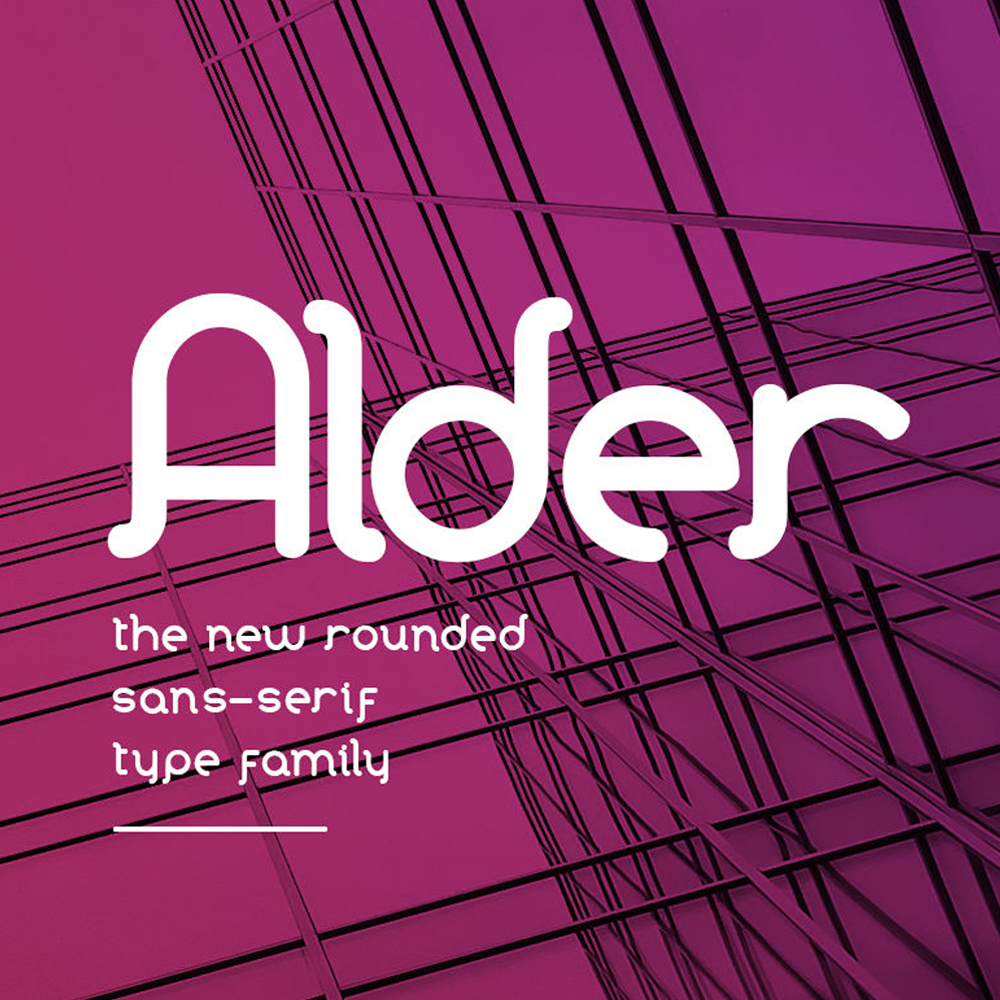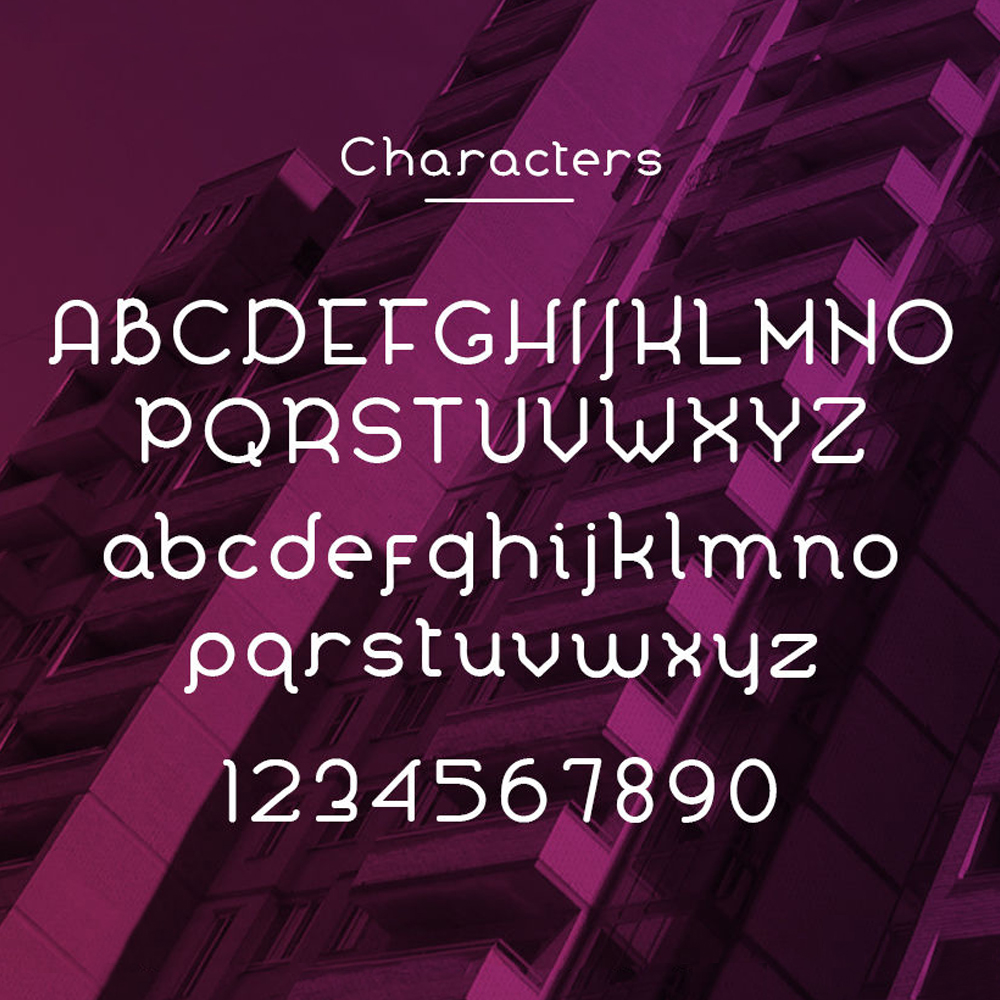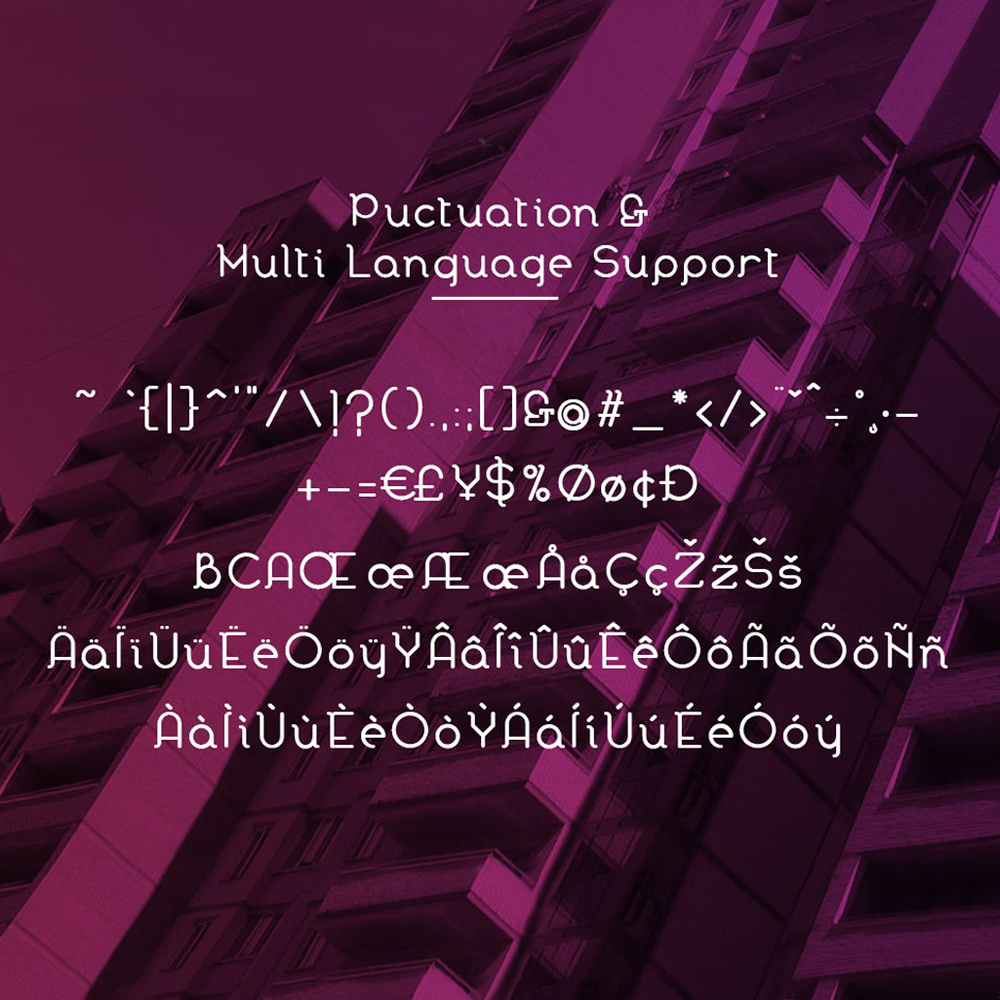
Alder Font
Alder Font is a cut friendly font compatible with Cricut, Silhouette, SCAL and Scan N Cut. Its thickness makes it an ideal font for making cut files.
• Uppercase, Lowercase numbers & punctuation
• Regular, Italic, Bold, & Bold Italic
• Multi Language support